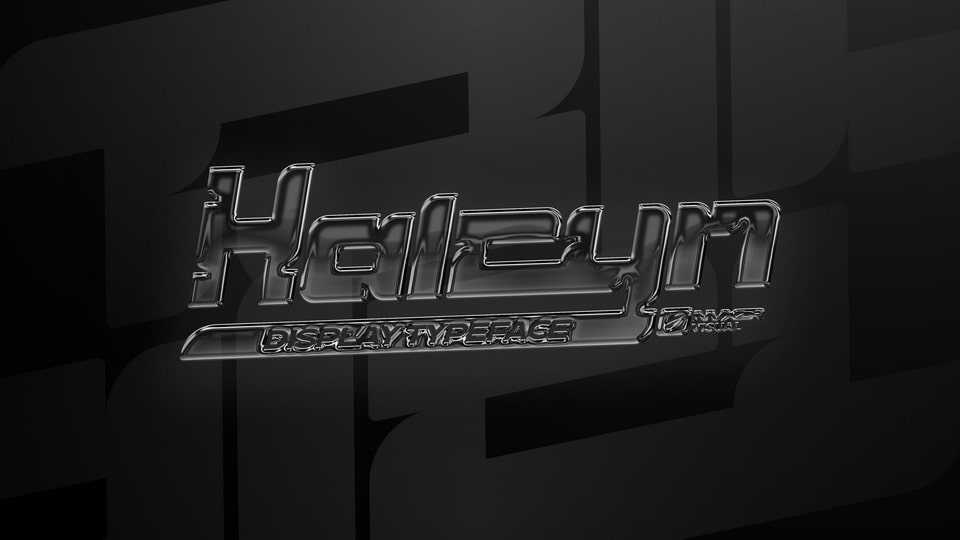
Download Halcyn font, an experimental display typeface inspired by y2k typography with a futuristic and unique shape. Halcyn font is suitable for the use of logotypes, title designs, clothing designs, and more.